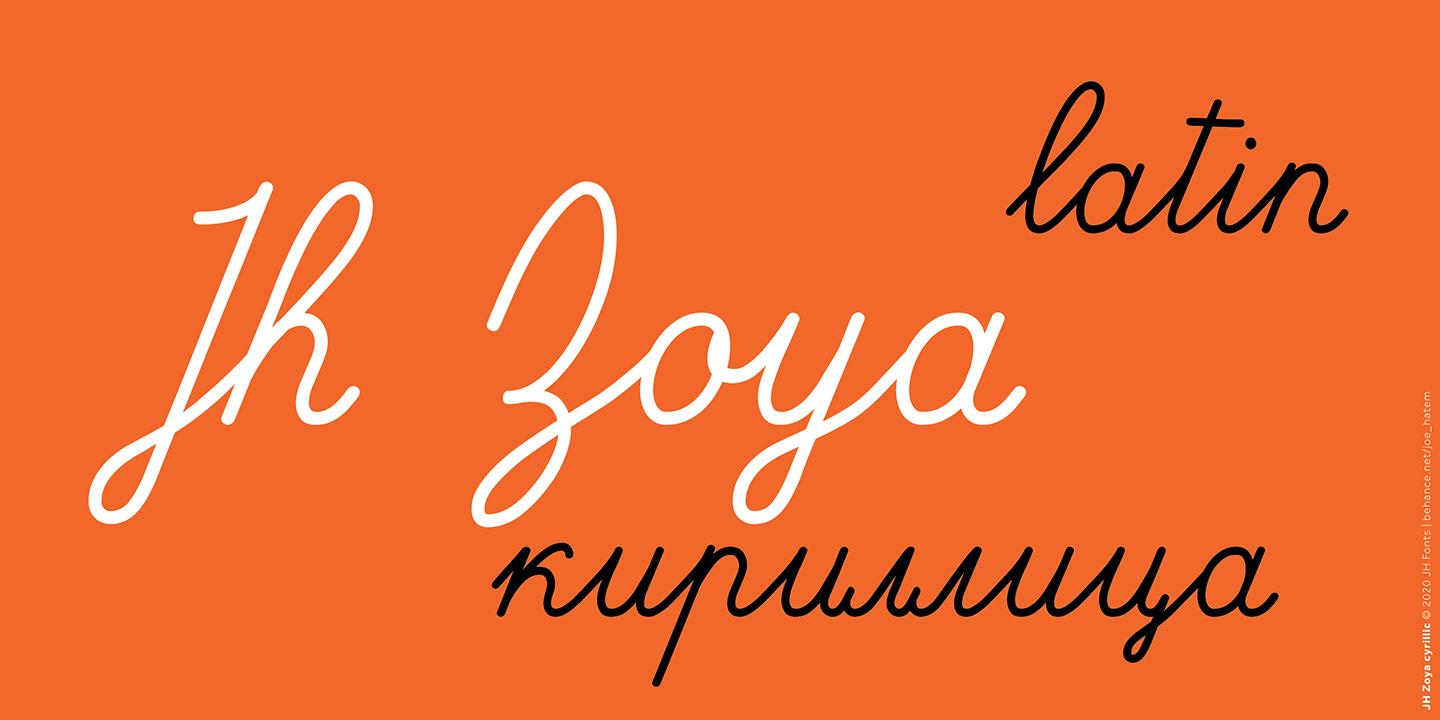
The JH Zoya Cyrillic Font is an excellent choice for designs that require a sophisticated, handcrafted, and authentic script aesthetic, specifically supporting both Latin and Cyrillic alphabets. Imagine it lending an elegant touch to branding for Eastern European boutiques, adding a personal and artistic feel to Russian-language book covers, or gracing the invitations for multicultural events. It's also perfectly suited for personalized stationery in Cyrillic languages, engaging social media graphics targeting Slavic audiences, and any project where you want to evoke a sense of tradition, craftsmanship, and elegant communication across diverse linguistic contexts. With its flowing lines and extensive character set, the JH Zoya Cyrillic Font is ideal for projects that seek a distinctive and widely accessible impression.
What makes the JH Zoya Cyrillic Font truly exciting is its remarkable ability to simulate authentic school handwritten calligraphy for over 1500 characters, encompassing both Latin and a comprehensive Cyrillic script. This unique feature gives your designs an immediate warmth and exclusivity, making them feel genuinely personal and thoughtfully created. The natural connections between characters and the subtle variations in stroke create an organic, human feel that is both visually captivating and highly legible. It's perfect for establishing a brand identity that feels traditional, artistic, and genuinely heartfelt, ensuring your message is not just seen, but deeply felt and understood by a broad audience. The JH Zoya Cyrillic Font Free Download offers a fantastic opportunity to infuse your projects with this distinctive charm.
The JH Zoya Cyrillic Font is primarily designed as a single, sophisticated script style with extensive character support. While it may not have traditional "bold" or "light" weights in the same way a sans-serif font might, its versatility comes from its vast array of characters, including:
JH Zoya Cyrillic Regular: The core script style, designed for fluent, natural-looking handwriting.
Extensive Character Set: This includes not only full Latin and Cyrillic alphabets but often numerous ligatures, stylistic alternates, and contextual variations to ensure smooth, authentic connections between letters, mimicking true handwriting.
These features provide designers with ample flexibility to create engaging and authentic-looking text in both Latin and Cyrillic scripts, making it a valuable asset for multilingual projects.